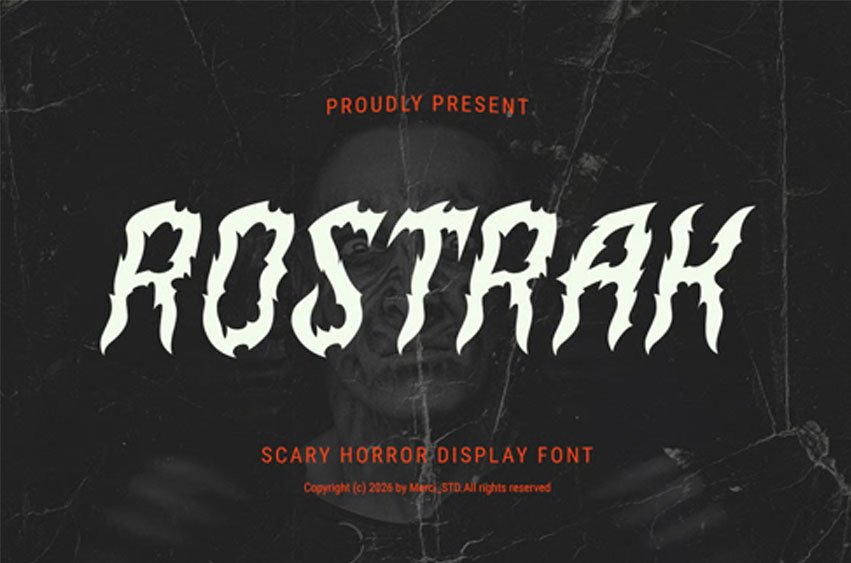
Rostrak Font
Rostrak Font is a horror-themed display font with sharp, eerie shapes and unsettling style. Perfect for Halloween designs, movie posters, and dark creative projects.
• Uppercase Letters
• Numbers & Punctuation
• Ligature & Alternate Character
• Unique Hand-Drawn Style